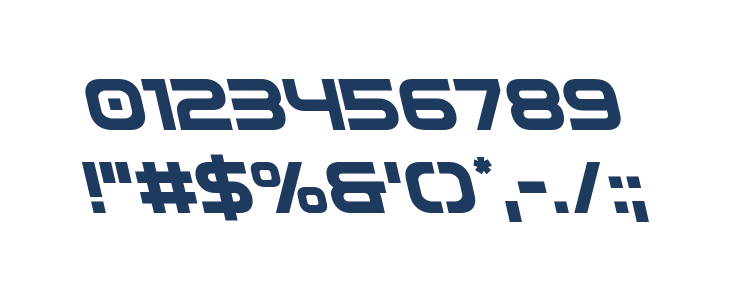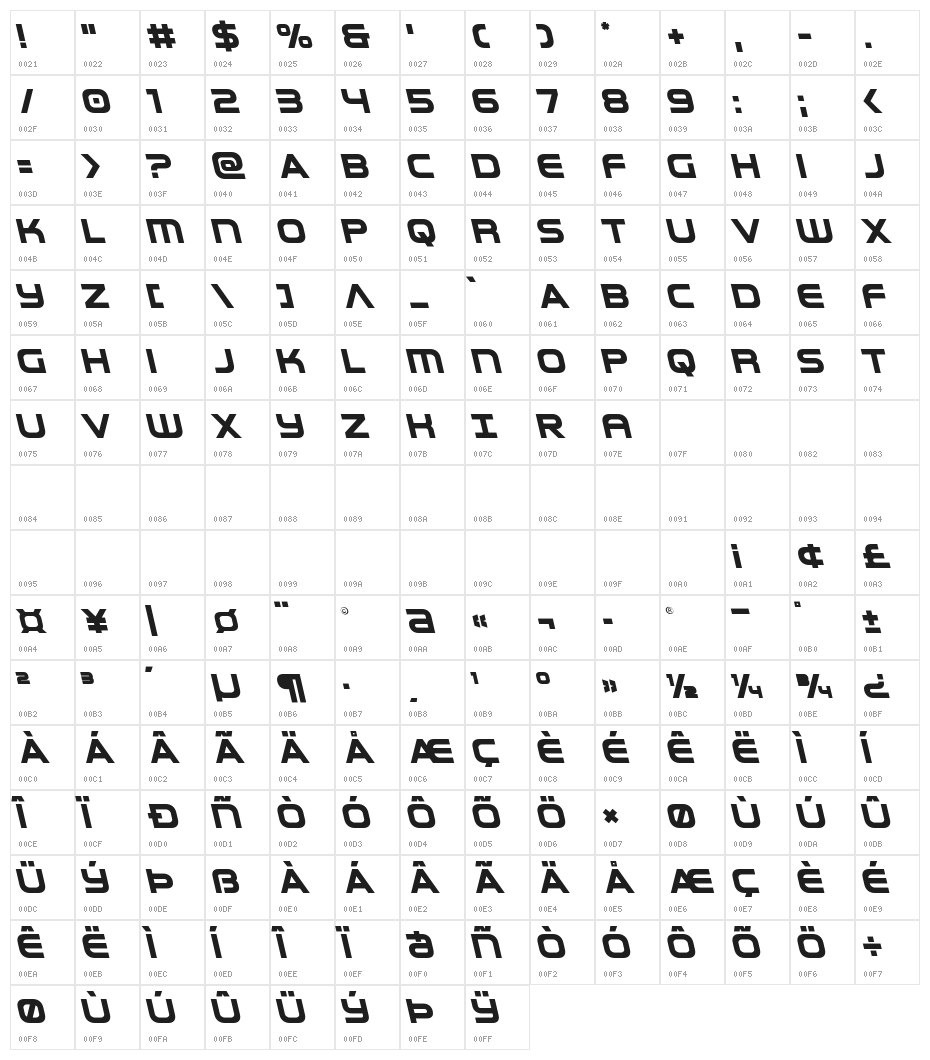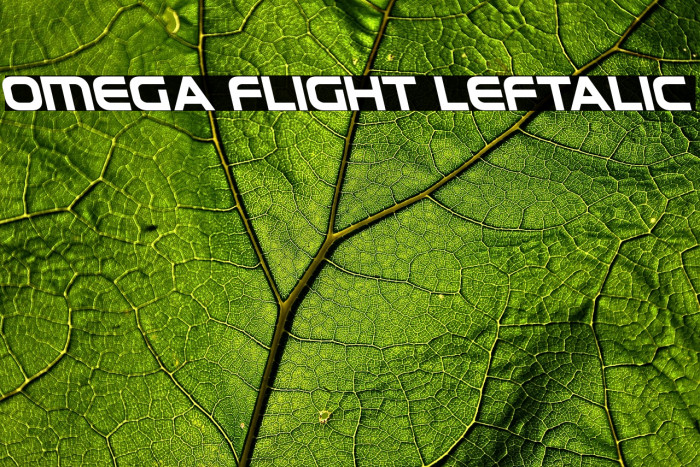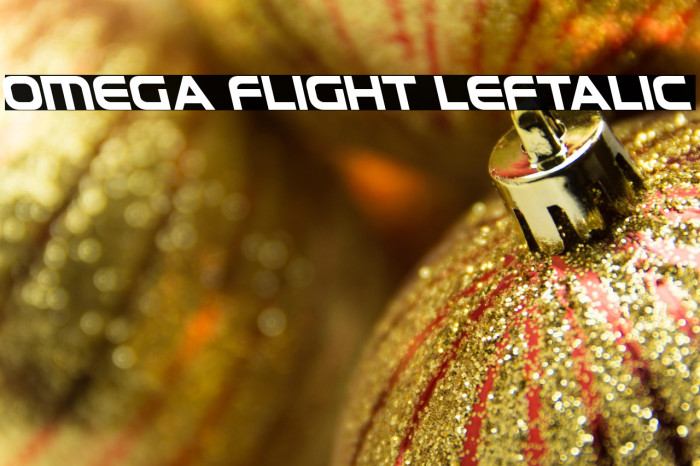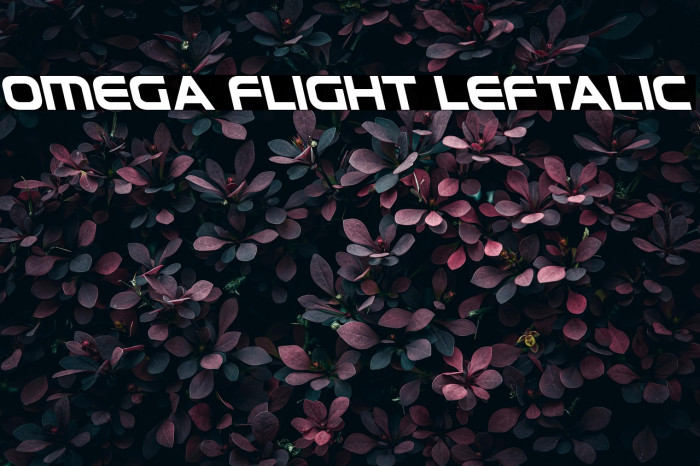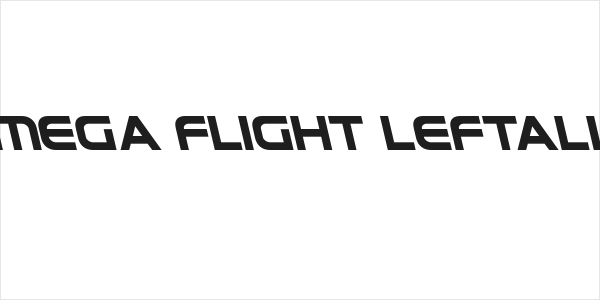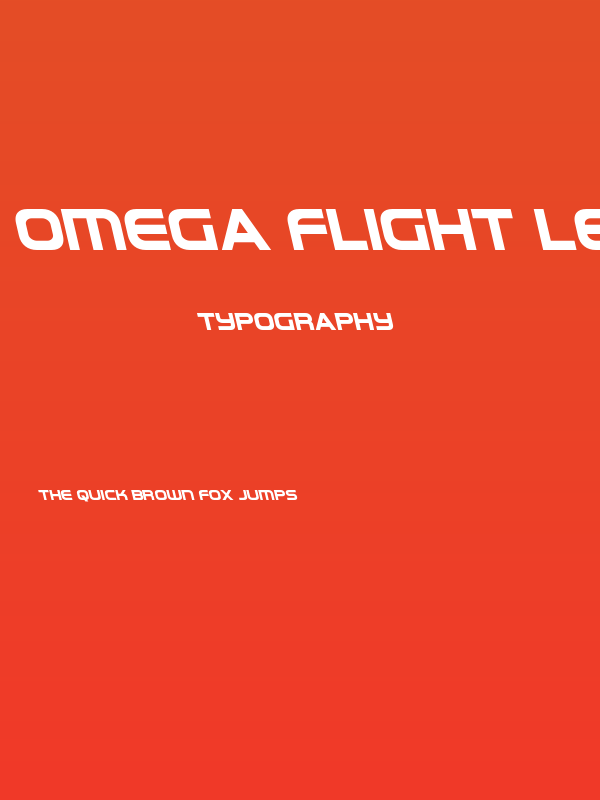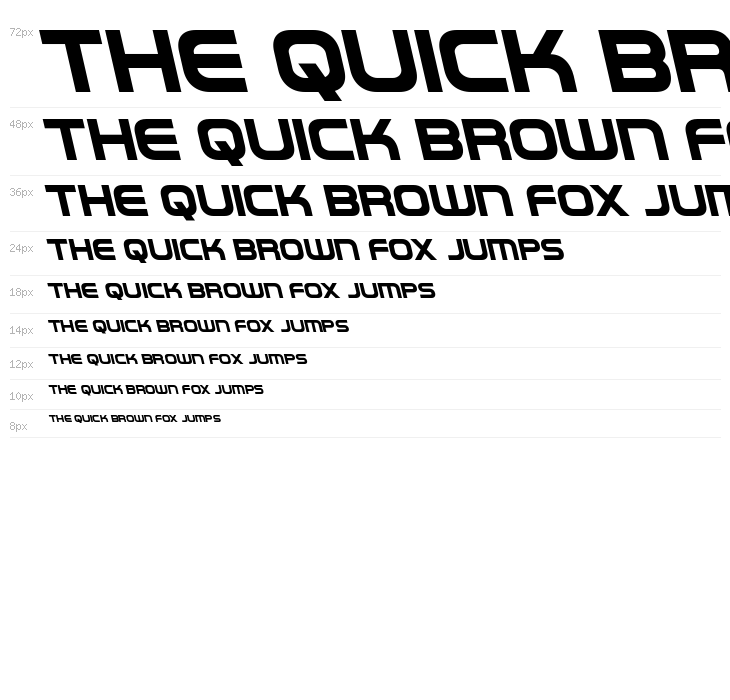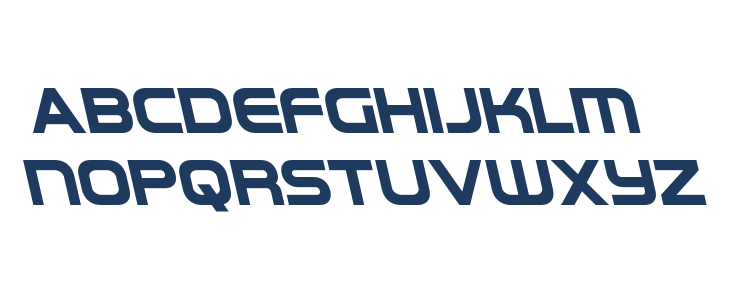
Omega Flight Leftalic Font
Omega Flight Leftalic Description
This font features a futuristic and dynamic style with a distinct slant to the left, giving it a sense of motion and speed. The characters are bold and geometric, with sharp angles and a consistent stroke width that maintains clarity and legibility. The uppercase and lowercase letters are designed with a uniform height, contributing to a cohesive appearance. Numbers and special characters are crafted with the same attention to detail, ensuring a harmonious look across all elements. This font is ideal for projects that require a modern and energetic aesthetic.